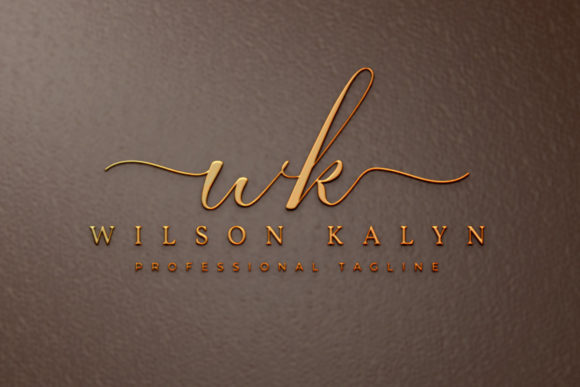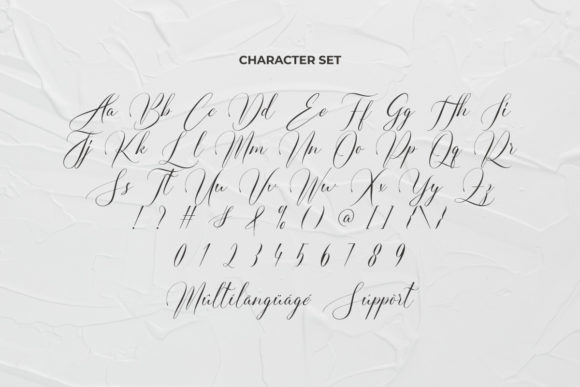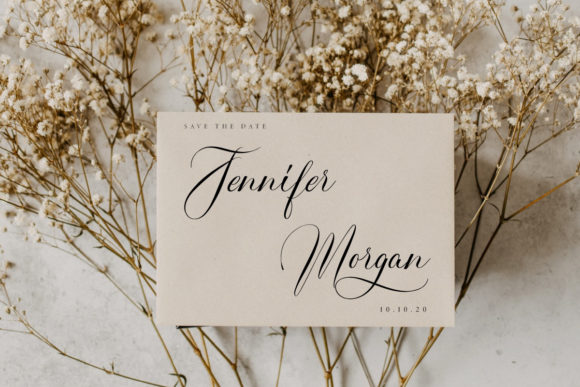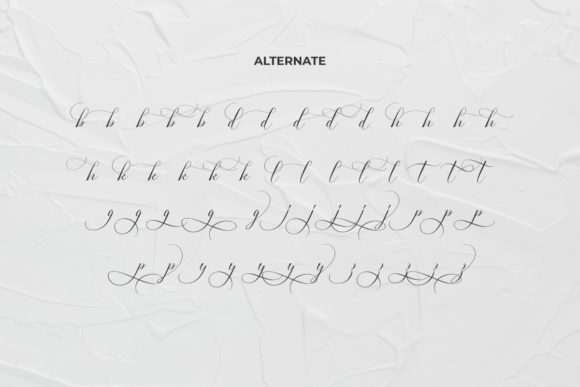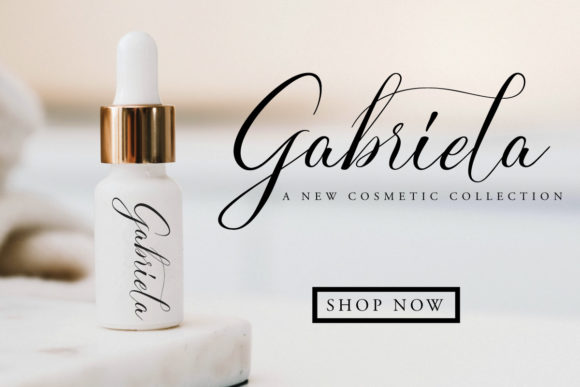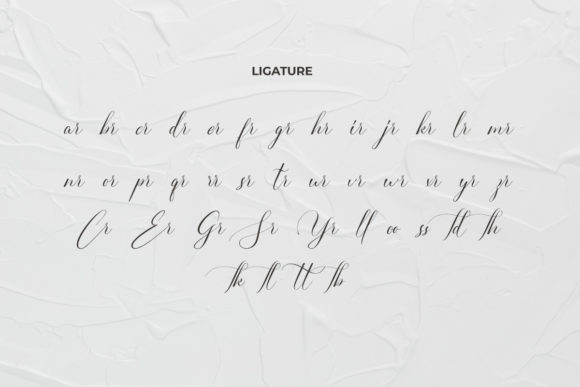
Introduction to Grand Estonia Font
As a designer, there’s nothing quite like the thrill of stumbling upon the perfect font for your next creative project. It’s that moment when all the pieces fall into place, and your design starts to shine. For me, that moment came when I discovered the Grand Estonia Font. With its elegant and charming aesthetic, it instantly elevates any design from good to great.
With its PUA encoded glyphs and swashes, the Grand Estonia Font offers endless possibilities for creative expression. In this article, we’ll delve into the world of this stunning font and explore why it’s a must-have for any designer looking to add a touch of elegance to their work.
Key Features of Grand Estonia Font
- High-quality design: Grand Estonia Font is a premium, high-quality design resource ideal for creative projects.
- Transparent background: This font features a transparent background, allowing for seamless integration with various design elements.
- Resolution-independent: Designed to be resolution-independent, Grand Estonia Font looks great at any resolution, from small mobile screens to large-format prints.
- Unique characteristics: Grand Estonia Font boasts a unique blend of elegance and sophistication, perfect for adding a touch of refinement to any creative project.
- Size: The font family includes a range of sizes, from 10 to 1000 points, allowing for precise control over font size and scaling.
Honest Review: Grand Estonia Font
I recently stumbled upon the Grand Estonia Font, and I must say it’s a solid addition to any design resource collection. This high-quality font has caught my attention with its elegant and sophisticated feel.
- ✨ Elegant and sophisticated feel
However, there are a few limitations to consider. The font is not as versatile as some other high-end fonts on the market, and it may not be suitable for all types of creative projects.
- ⚠️ Limited versatility
- ⚠️ May not be suitable for all types of creative projects
Overall, I think the Grand Estonia Font is a great choice for designers who are looking for a high-quality, elegant font to add to their design resource collection. While it may have some limitations, I believe it’s a solid addition to any creative project.
For the best results, pair the Grand Estonia Font with a transparent background to create a clean and modern design. You can also use this font in combination with other design elements, such as images and graphics, to create a visually appealing design.
The Grand Estonia Font is suitable for a wide range of creative projects, including:
- Documents
- Custom graphics and illustrations